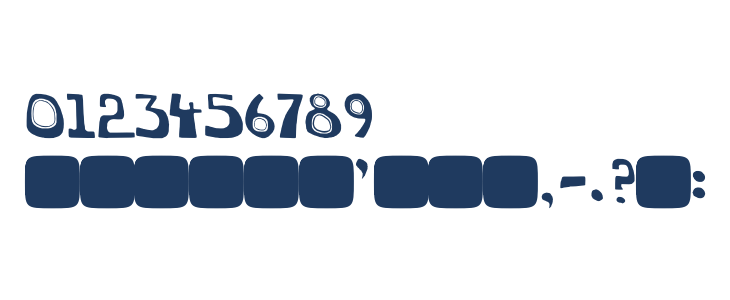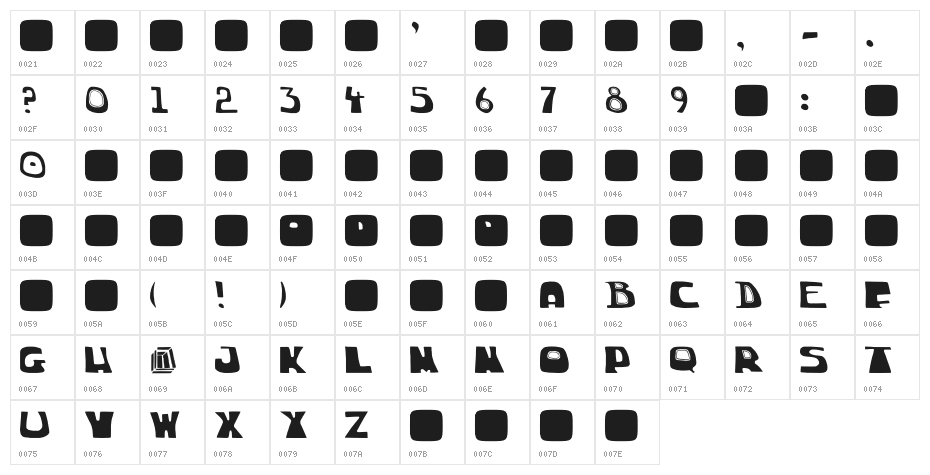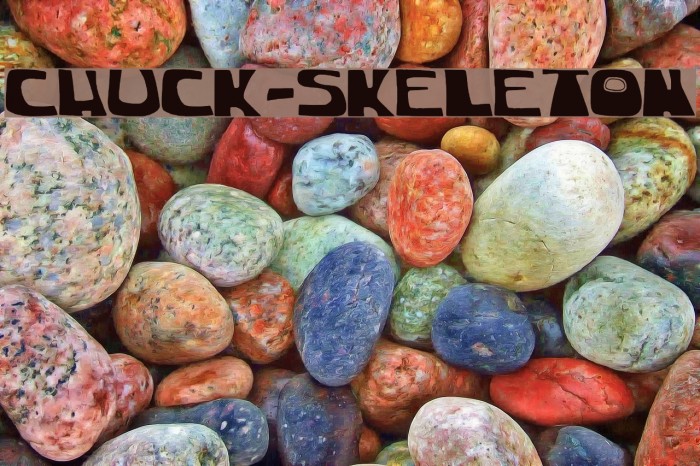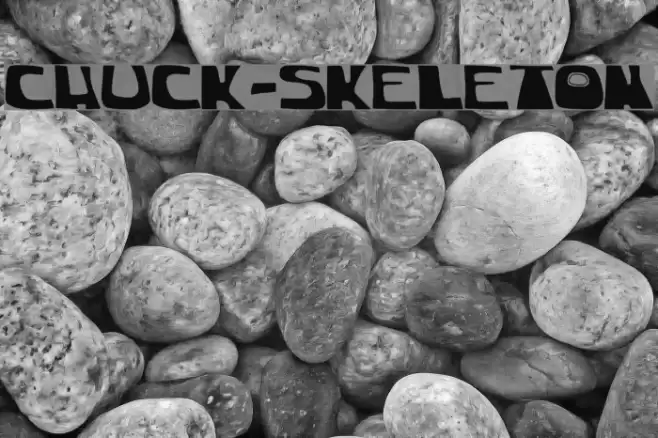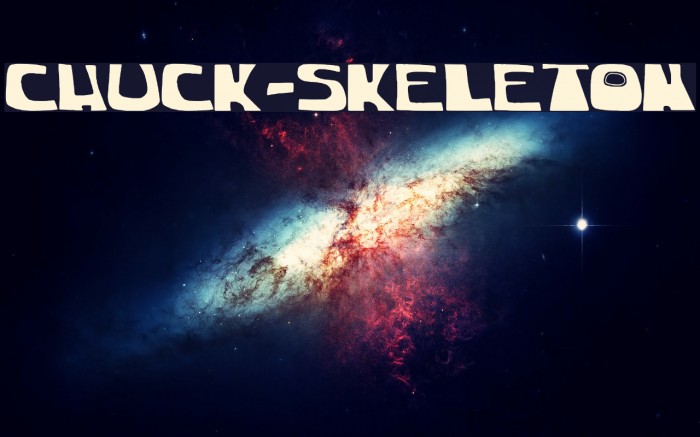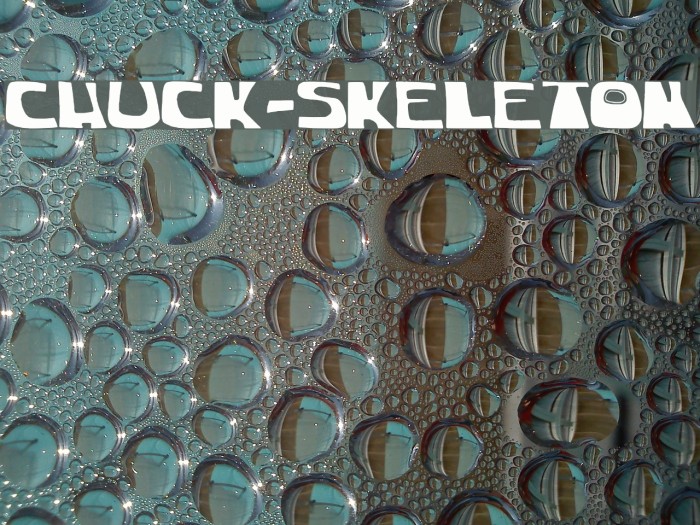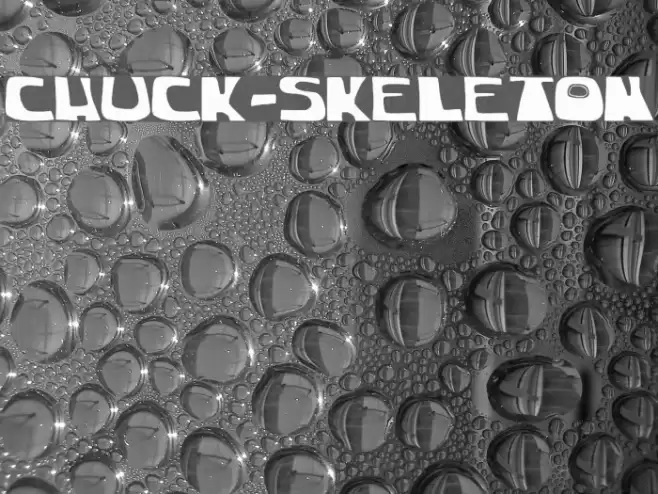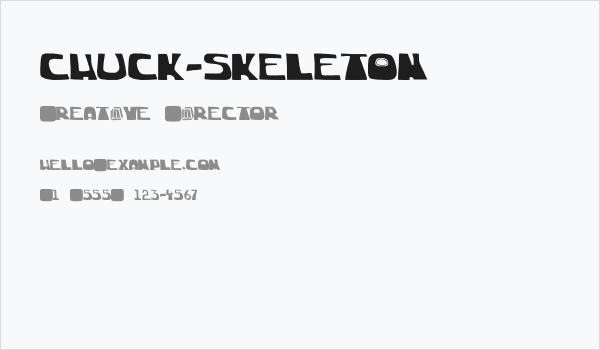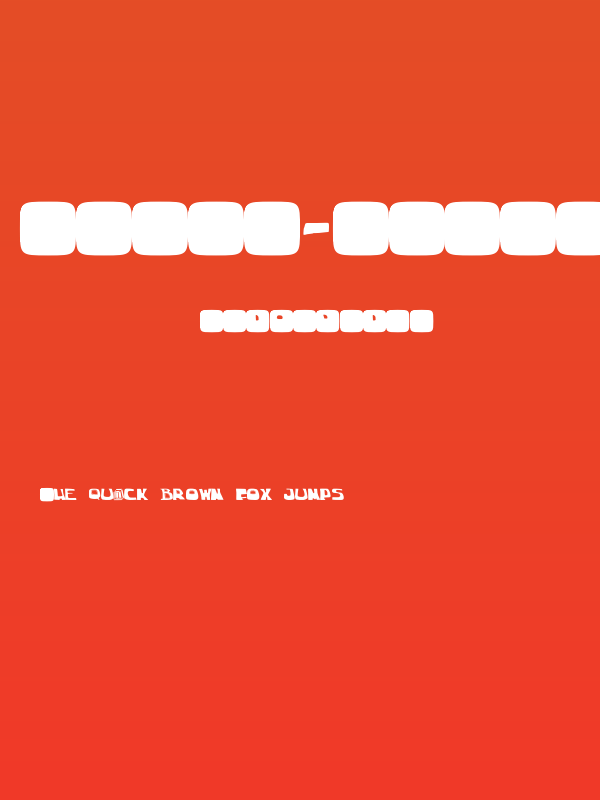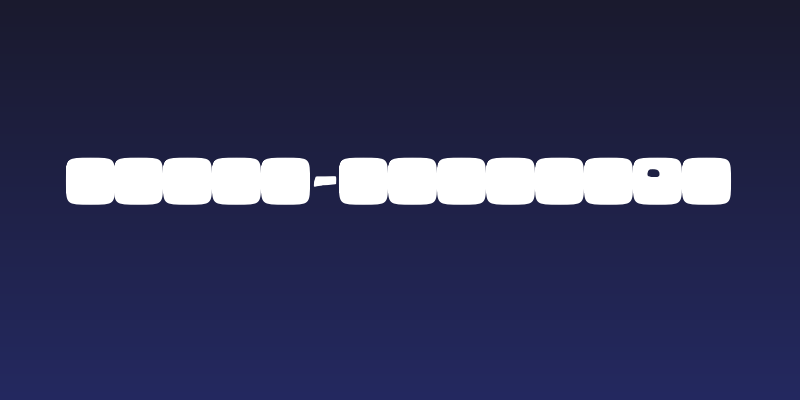
chuck-skeleton Font
chuck-skeleton Description
This font features a bold and playful design with a quirky, hand-drawn aesthetic. Each character is uniquely crafted with varying thickness and irregular shapes, giving it a whimsical and artistic feel. The uppercase letters are particularly distinctive, with some incorporating geometric elements that add to the font's dynamic appearance. The numbers and special characters maintain this creative style, ensuring consistency throughout. This font's boldness and unique character make it stand out, perfect for projects that require a touch of creativity and individuality.
| Overall Style | Playful, Artistic |
| Proposed Projects | Ideal for children's books, creative posters, playful branding, and artistic projects. |